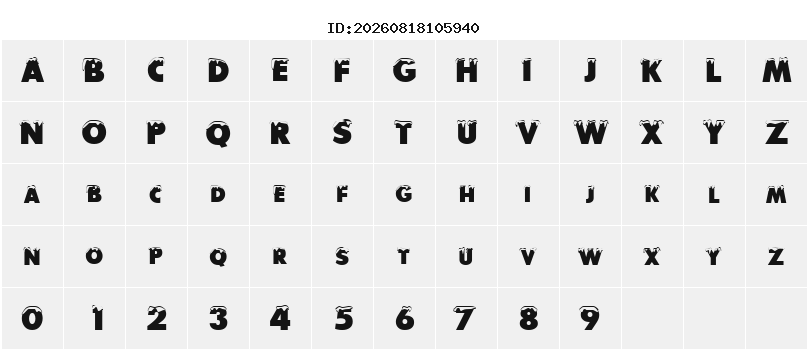
• Font Name: Snowy
• Font Style: Plain
• Font ID: Altsys Fontographer 3.3.1 Snowy Plain
• Full Font Name: Snowy Plain
• Version: Altsys Fontographer 3.3.1 10/6/1993
• PostScript Name: Snowy Plain
• Character Count: 225
About Snowy.ttf
Snowy.ttf is a modern, elegant sans-serif font designed for ultimate readability and visual harmony. Perfect for branding, headlines, web design, and print materials.